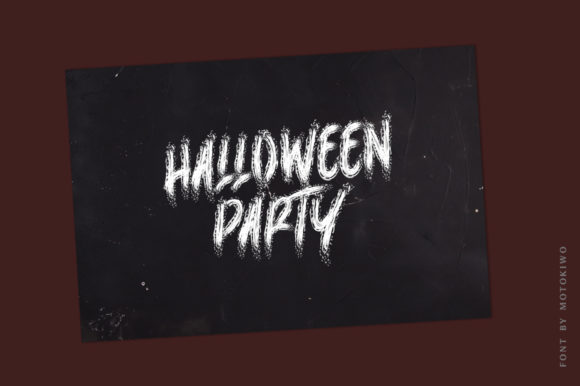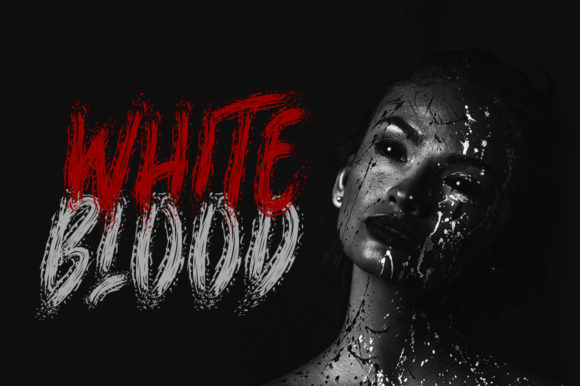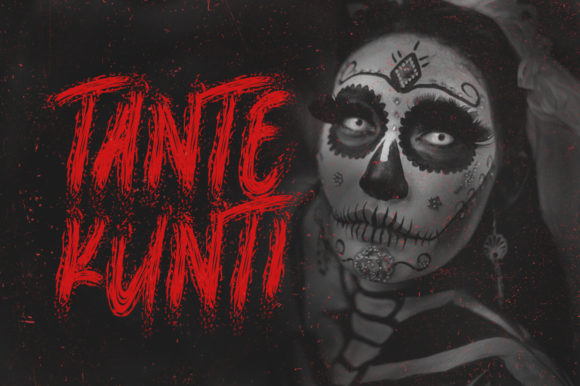
Introduction to Horrible Brush Font
Horrible Brush is a creepy display font with a messy brush texture that’s great for horror and Halloween projects.
It’s all caps and comes with numerals, punctuation, and multilingual support .